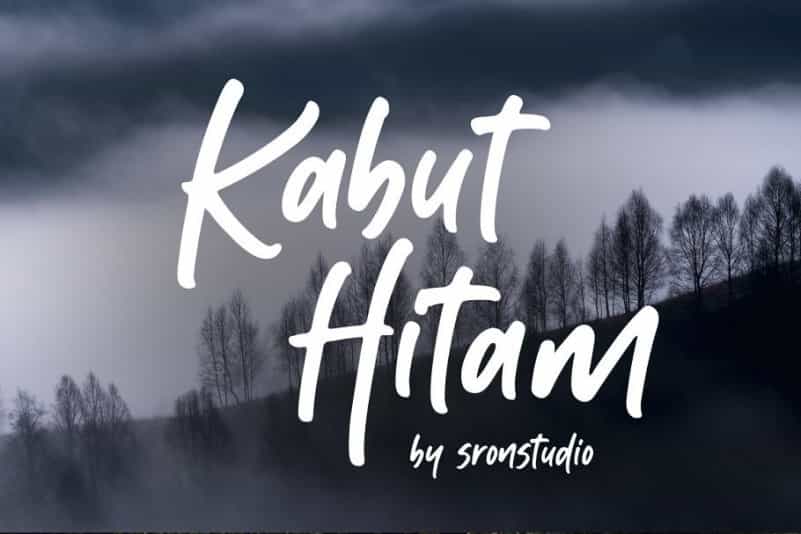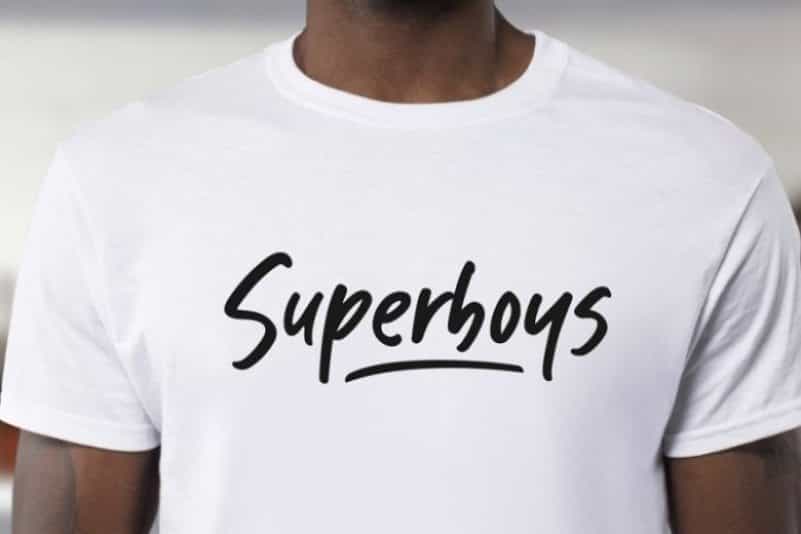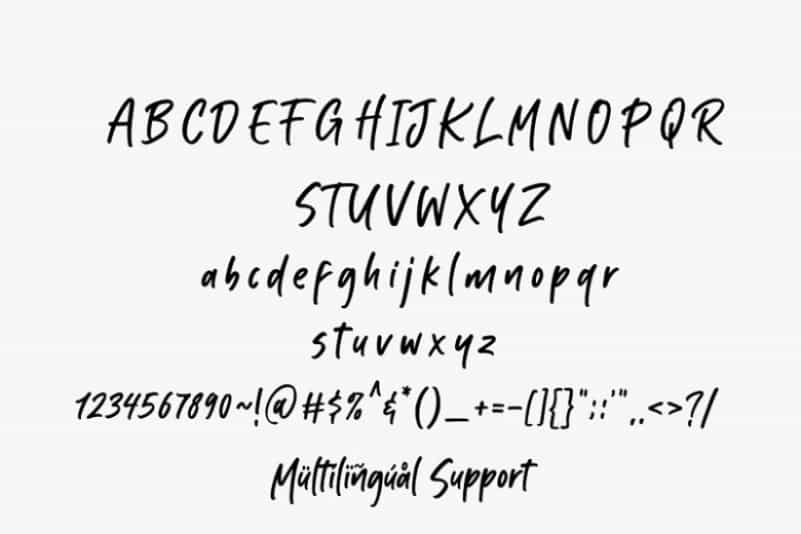
Discover Kabut Hitam Brush Font, part of the Brush Handwritten collection—a versatile and unique font perfect for adding a personal touch to your projects. Download it for free and enjoy crafting designs with style, from invitations to social media posts. This font is available exclusively for personal use, giving you the freedom to create without limits. Unlock your creativity with Kabut Hitam Brush Font today!
Kabut Hitam offers a twist with it’s handbrush design featuring edges on the letters and an appealing underline for a stylish look. Ideal for design projects like clothing, invitations, stationery, quotes, logos and more.